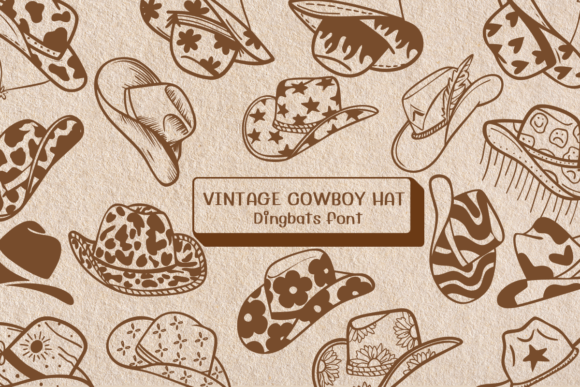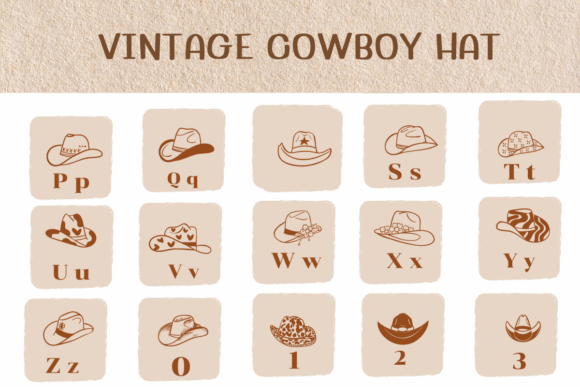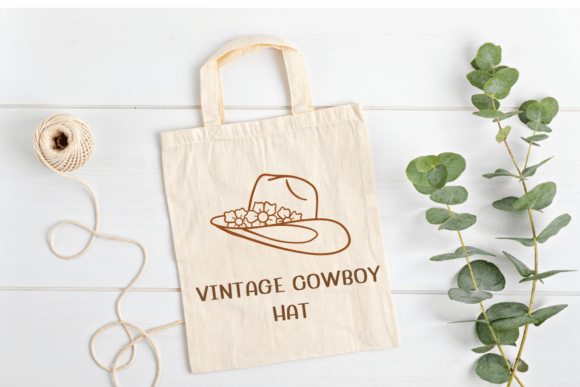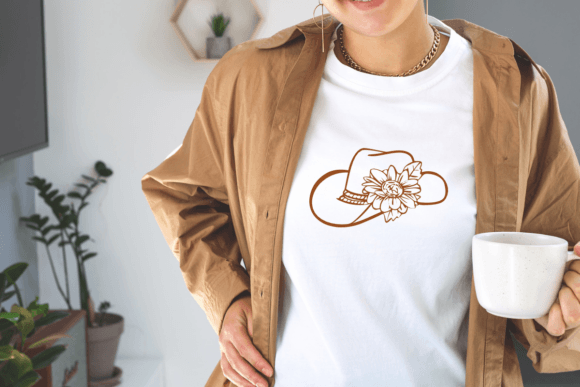
Vintage Cowboy Hat Font
VINTAGE COWBOY HAT is a dingbats font with theme with a sketch style. This font can enhance your creative projects such as wedding invitations, DIY, crafts, decorations, logos, and many other creative ideas.